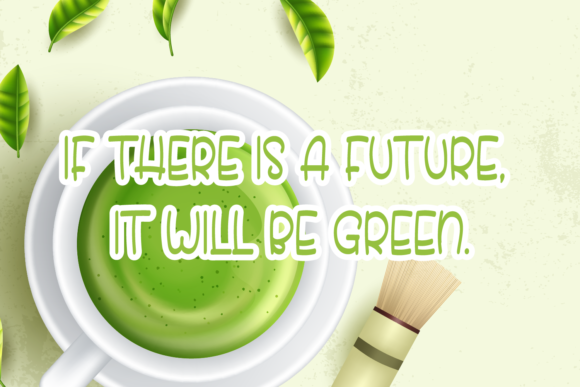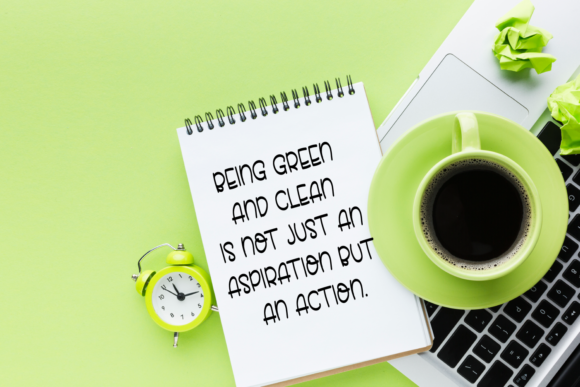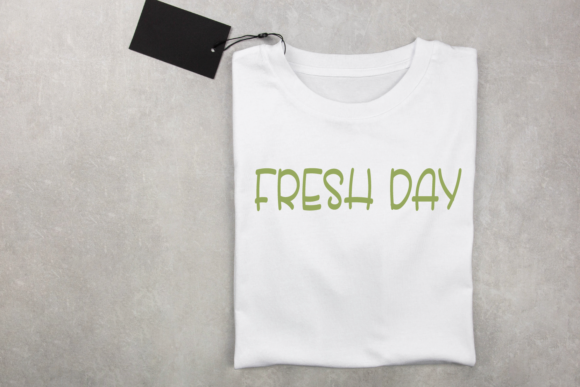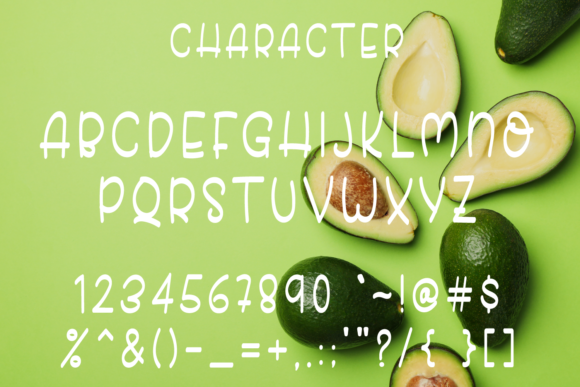
Discover the Charm of Dear Green Font: A Cute and Simple Handwritten Font
Are you a designer, crafter, or educator looking for a font that adds a personal touch to your creations? Look no further than Dear Green Font, a delightful and straightforward lettered handwritten font. Its authentic look and feel make it perfect for chalkboard quotes, teaching materials, and a wide range of design projects.
What Makes Dear Green Font So Special?
Dear Green Font boasts a unique, hand-crafted quality that sets it apart from more formal fonts. Its simplicity and charm make it an excellent choice for designs that require a personal and realistic feel. The font’s authentic look is reminiscent of handwritten chalkboard quotes, adding a touch of warmth and approachability to any design.
Perfect for Chalkboard Quotes and Teaching Materials
Dear Green Font is specifically designed with chalkboard quotes and teaching materials in mind. Its clear, easy-to-read letters make it perfect for creating engaging and informative designs for educational settings. Whether you’re a teacher looking to create eye-catching lesson plans or a designer crafting inspirational quotes, Dear Green Font is the ideal choice.
Key Features of Dear Green Font
- Cute and Simple Design: Dear Green Font features a delightful, uncomplicated design that’s perfect for a wide range of projects.
- Handwritten Quality: The font’s hand-crafted look adds a personal touch to any design, making it perfect for creating unique and engaging content.
- Authentic Look: Dear Green Font’s authentic look and feel make it perfect for chalkboard quotes, teaching materials, and other designs that require a realistic feel.
- Easy to Read: The font’s clear, easy-to-read letters make it perfect for creating designs that require a high level of legibility.
How to Use Dear Green Font in Your Designs
Dear Green Font is incredibly versatile and can be used in a wide range of design projects. Here are a few ideas to get you started:
- Chalkboard Quotes: Use Dear Green Font to create eye-catching chalkboard quotes that add a personal touch to any room.
- Teaching Materials: The font is perfect for creating engaging and informative lesson plans, worksheets, and other educational materials.
- Signs and Posters: Dear Green Font is ideal for creating signs and posters that require a clear, easy-to-read font.
- Digital Designs: The font can also be used in digital designs, such as social media graphics, blog posts, and more.
Tips for Getting the Most Out of Dear Green Font
Here are a few tips for getting the most out of Dear Green Font:
- Experiment with Colors: Dear Green Font looks great in a variety of colors, so don’t be afraid to experiment and find the perfect hue for your design.
- Pair with Other Fonts: The font pairs well with other fonts, so try combining it with a bold font for added visual interest.
- Use in Combination with Images: Dear Green Font looks great when used in combination with images, so try incorporating it into your designs for added visual interest.
Dear Green Font is a delightful and straightforward lettered handwritten font that’s perfect for designers, crafters, and educators. Its authentic look and feel make it ideal for chalkboard quotes, teaching materials, and a wide range of design projects. With its cute and simple design, easy-to-read letters, and versatile uses, Dear Green Font is a must-have font for anyone looking to add a personal touch to their creations.